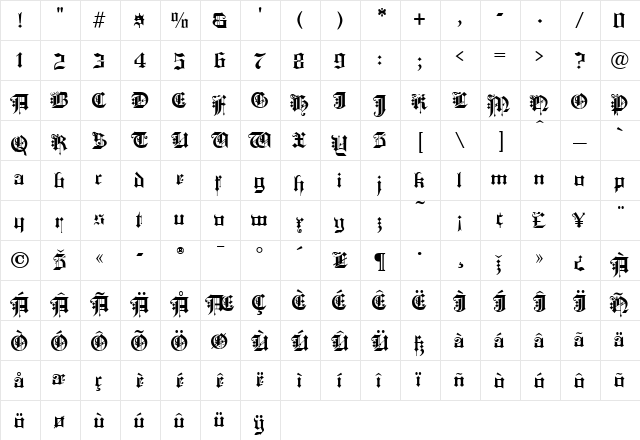
KingsCross Regular Font Preview
KingsCross Regular
KingsCross Regular Font Details
Design Context for KingsCross Typeface
KingsCross is a composed and adaptable typeface that performs quietly and consistently across a wide range of design contexts.